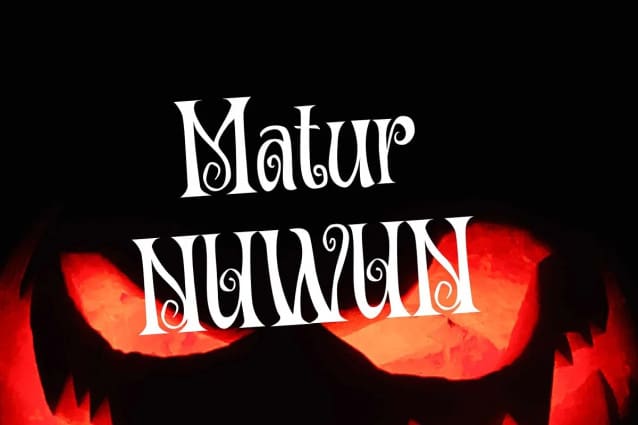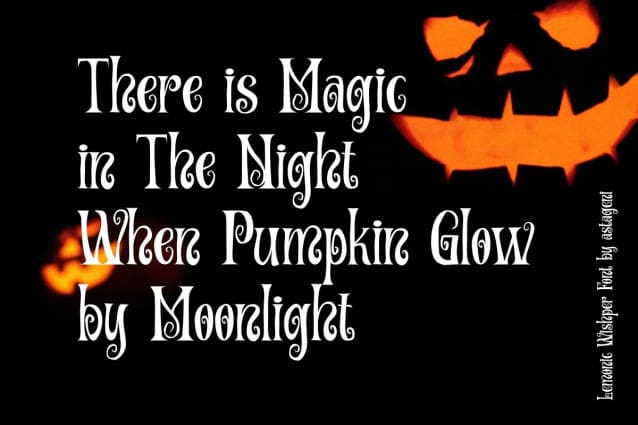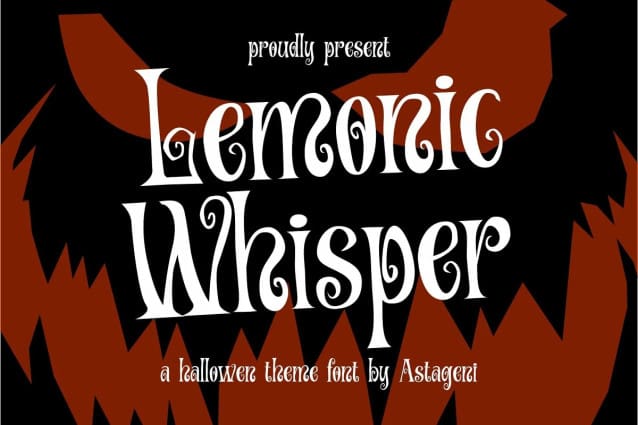
Lemonic Whisper Font
Lemonic Whisper Font is designed for the needs of design concepts themed about Halloween and events in October and November. LemonicWhisper Typeface has a horror character with a character shaped like a distortion character, making the horror Halloween-themed design concept even better and unique.
Lemonic Whisper Font is perfect for magazine cover designs, brochures, and flyers. Instagram ads, Canva Design and so on with Halloween and dark concepts. besides that, this font is very easy to use both in design and non-design programs because everything changes and glyphs are supported by Unicode (PUA).